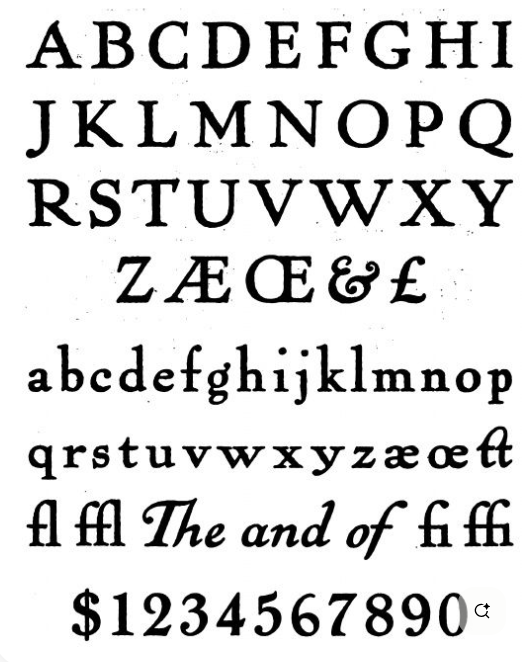
The Pabst font is famous for its nostalgic appeal which triggers originality while delivering retro-inspired visual identifications. This vintage typeface continues attracting attention because it maintains an enduring link to Pabst Blue Ribbon and its sharing of American-style charm and traditional elegance.
The paper investigates the historical roots of Pabst Font while identifying its key characteristics through an analysis of creative applications and download instructions using up-to-date guidelines and evaluation of its enduring popularity within design communities.
What is Pabst Font?
Pabst Blue Ribbon(PBR) utilizes its Pabst Font as its decorative serif typeface to create branding for its well-known American beer industry. This font draws inspiration from the rich history of vintage Americana design which reflects vintage Americana principles from American history while upholding strong authenticity and heritage elements. The font excels at retro design because of its vintage appearance alongside its refined specific elements.
The Pabst Font has historically served as a vital brand visual element for Pabst Blue Ribbon enabling the eminent beer company to convey both its masterful craftsmanship and celebrated traditions through design elements. The distinct decorative elements with strong serifs in this design follow the aesthetics that dominated design during 1880 up to 1920 resulting in broad appeal for modern vintage design projects.
Features of Pabst Font
The Pabst Font has several distinctive features that set it apart from other typefaces:
1. Classic Serif Design
Its decorative serif elements evoke a sense of nostalgia and vintage elegance. These intricate details give it a timeless appeal, perfect for capturing the spirit of the past.
2. Elegance and Simplicity
Despite its ornate design, the Pabst Font maintains a balance between elegance and readability, making it suitable for a variety of applications.
3. Versatility
While it is deeply rooted in vintage aesthetics, the Pabst Font’s versatility allows it to be used across various design mediums, from branding to digital media.
4. Strong Branding Identity
The font’s historic association with the Pabst Blue Ribbon brand underscores its effectiveness in creating memorable and impactful brand identities.
Applications of Pabst Font
The Pabst Font is highly versatile and can elevate various design projects. Here are some practical applications:
1. Branding and Logos
Perfect for businesses aiming to evoke a retro or nostalgic vibe, the Pabst Font is ideal for logos that need to stand out with a vintage touch.
2. Packaging Design
This font works wonderfully for product packaging, especially for beer labels, artisan goods, or any product seeking a heritage-inspired look.
3. Posters and Invitations
For vintage-themed events or promotional materials, the Pabst Font adds a touch of sophistication and charm.
4. Apparel and Merchandise
From T-shirts to caps, the font lends itself well to creating unique and stylish designs for fans of retro aesthetics.
5. Digital Media
Use the Pabst Font in social media graphics, advertisements, or website designs to create eye-catching visuals with a vintage flair.
Conclusion: Pabst Font
The Pabst Font assembles more than random letters because it represents a pathway to vintage designs that stand forever. It provides users with a remarkable font solution which combines timeless serifs with elegant features that suit projects seeking vintage appeal without sacrificing contemporary fluidity.